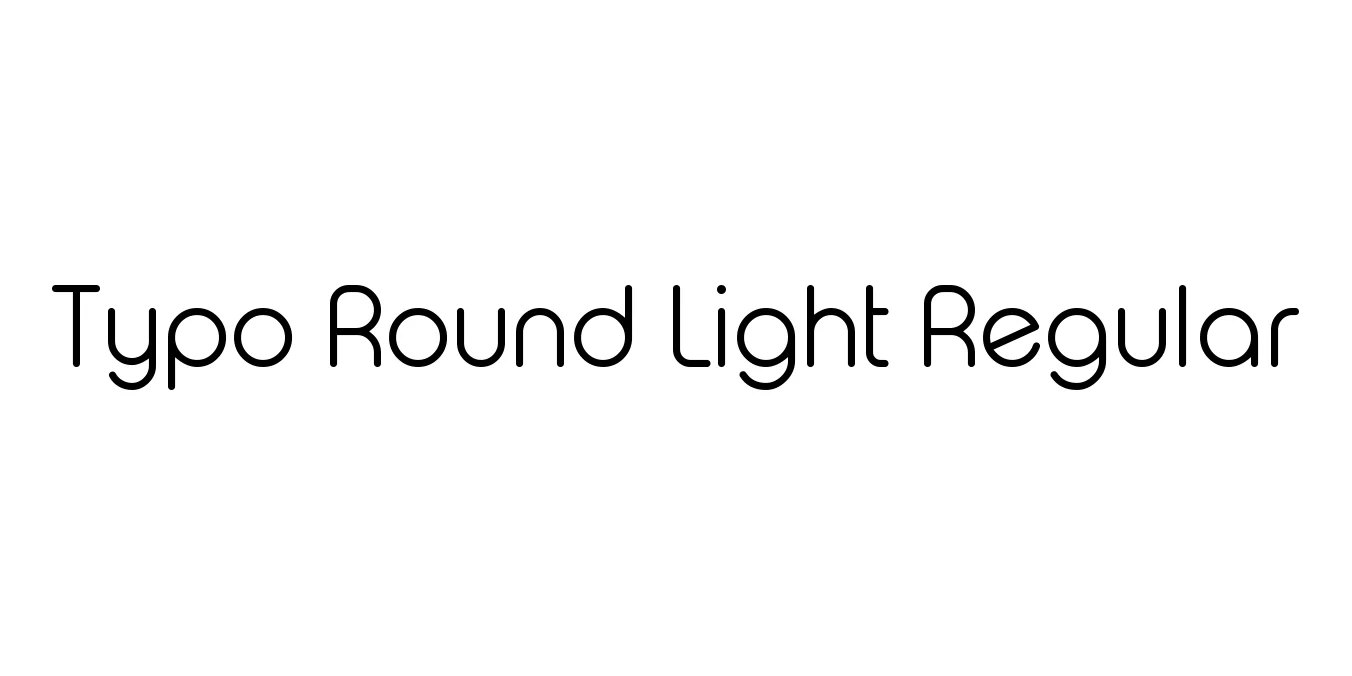
Typo Round Light Regular
Designed by Studio Typo
| Category | Rounded Sans Serif |
| Designer | Studio Typo |
| Similar Fonts | Helvetica Rounded, Arial Rounded, VAG Rounded, Comfortaa |
Typo Round Light Regular is a geometric sans-serif typeface characterized by its soft, circular terminals and clean, architectural lines. Developed by Studio Typo, this font family emphasizes a friendly and approachable aesthetic while maintaining a high level of legibility across various screen sizes. Its light weight provides a delicate, airy feel that is perfect for modern design projects that require a touch of softness without sacrificing a professional appearance.
The font is particularly effective in digital environments where its rounded edges help reduce visual fatigue compared to sharper, more rigid typefaces. It is frequently utilized in branding, user interface design, and creative advertising. Since its release, Typo Round has become a preferred choice for designers seeking a balance between a playful spirit and a minimalist, contemporary structure, making it a versatile tool for both web and print media applications.
Typo Round Light Regular Best Uses
Excellent for buttons and interface elements due to its high readability and soft aesthetics.
Perfect for tech startups and lifestyle brands wanting an approachable and modern look.
Adds a clean and sophisticated touch to subheadlines and magazine pull quotes.